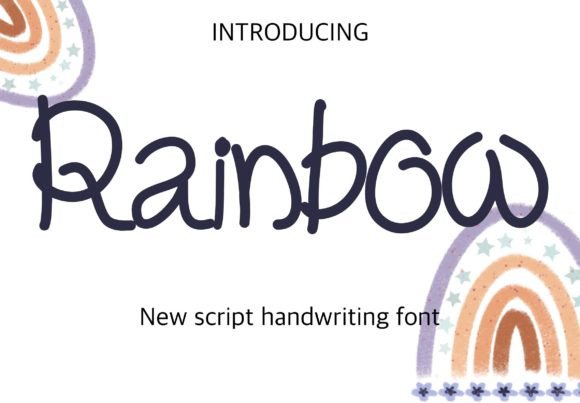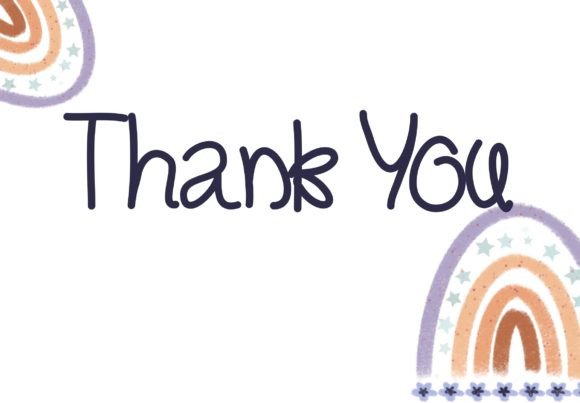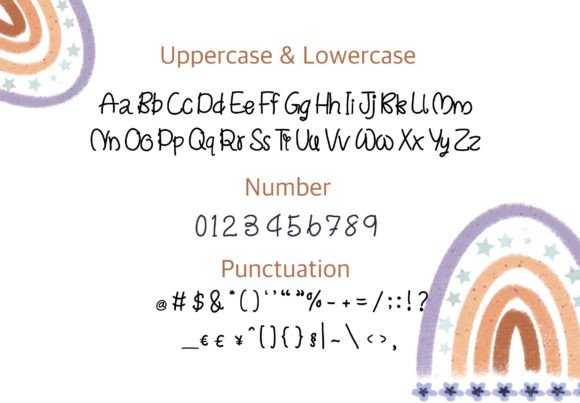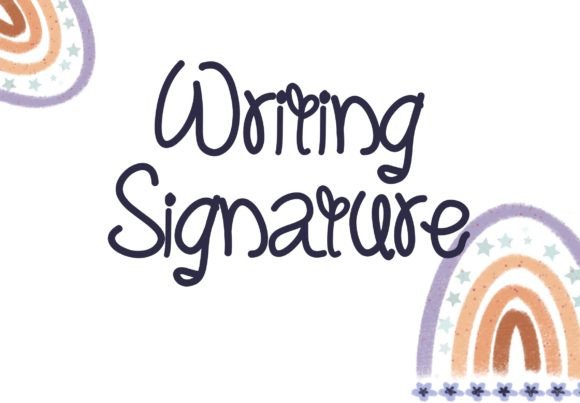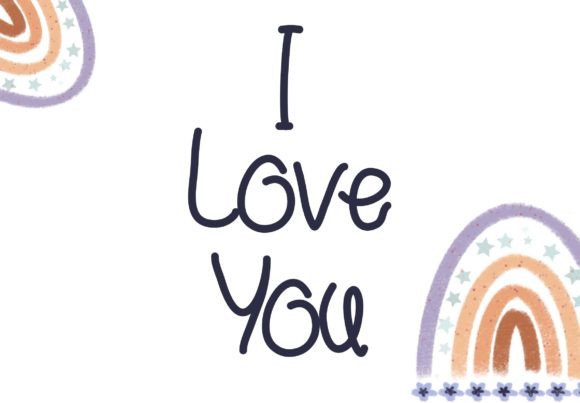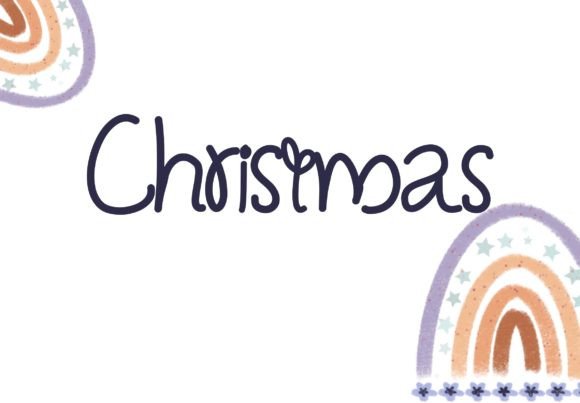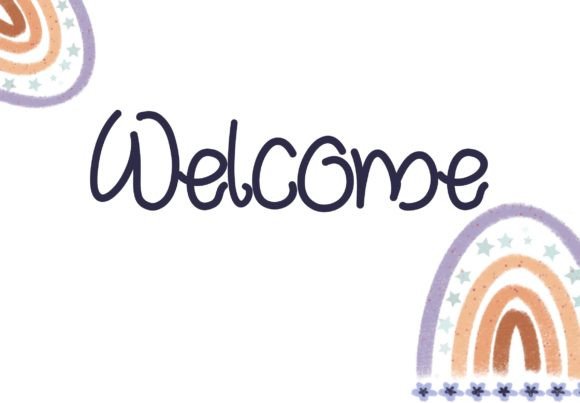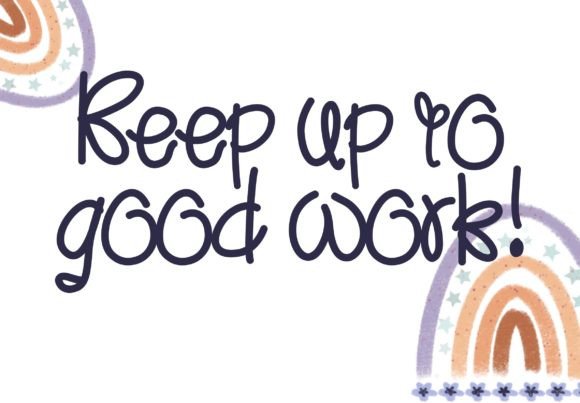
Rainbow Font
About Rainbow Font
“Rainbow” is a lovely and cute handwritten font that is perfectly suited for a wide range of creative projects. This charming font is ideal for various occasions, including Christmas projects and Halloween projects. It can be used effectively for wall displays, social media posts, logos, T-shirts, posters, product packaging, product designs, invitations, labels, stationery, and any other design that requires a friendly and playful touch.
The font’s cuteness and charm make it an excellent choice for projects where you want to convey a sense of friendliness and creativity. Its handwritten style adds a touch of authenticity and warmth to your designs, making them engaging and memorable.
In the world of design, fonts play a significant role in setting the tone and conveying a visual identity. “Rainbow” excels in these aspects by offering a handwritten style that is both lovely and versatile. Its aesthetics infuse your designs with a sense of joy and approachability, making them perfect for festive occasions and projects that require a friendly touch.
In summary, “Rainbow” is more than just a font; it’s a lovely and cute design tool that can enhance your projects with its playful and friendly style. Whether you’re working on holiday-themed designs or other creative endeavors, “Rainbow” is the font that can help you craft designs that are visually appealing and full of charm.